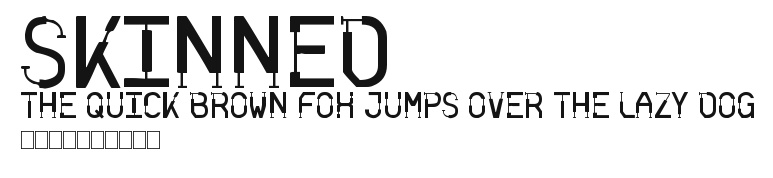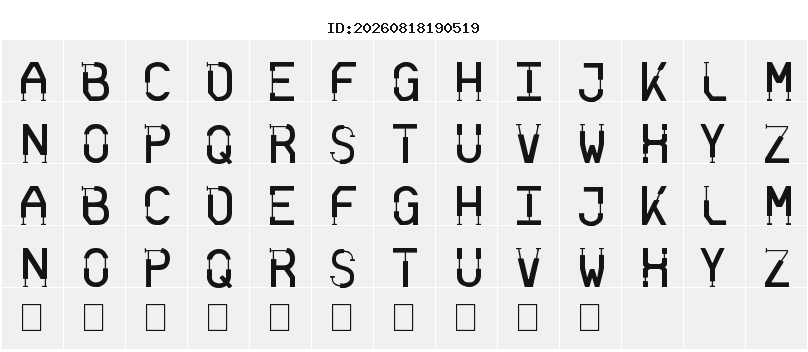
Skinned Preview
• Font Name: Skinned
• Full Font Name: Skinned
About Skinned.ttf
Skinned.ttf is a modern, elegant sans-serif font designed for ultimate readability and visual harmony. Perfect for branding, headlines, web design, and print materials.